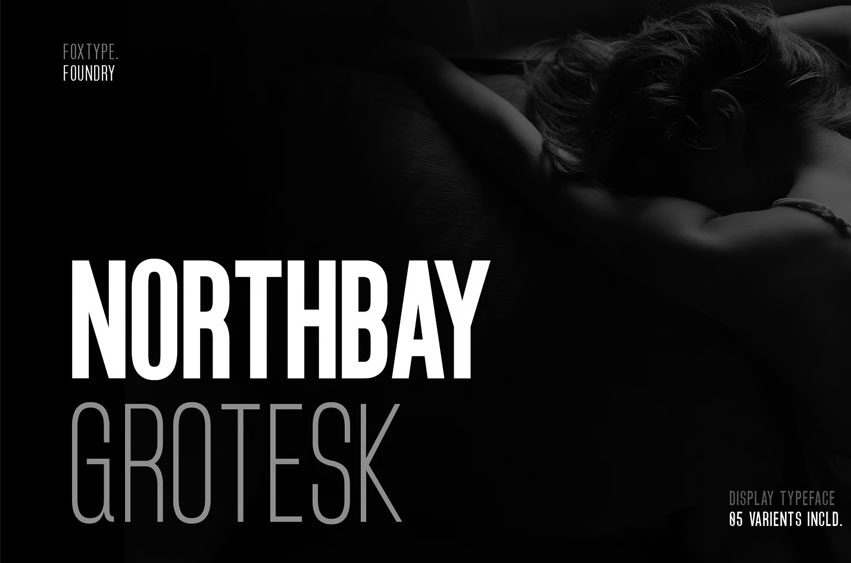
NorthBay Grotesk Font new generation Typeface with 5 Weights. Northbay Grotesk was created with the vision of attracting the audience to your brand. The finest details of this typeface are methodically and mathematically created. Northbay Grotesk is created with all the tasks of a corporate font and is also suitable for the usage in a variety of projects, including branding, logos, titles, headlines, banners, screens, displays, digital ads, and everything else.
We are putting a lot of effort into this font as a long-term project. The Typeface includes Five Weights. Light, Regular, Medium, SemiBold, and Bold — Features:
- Numerals, extended punctuation & Basic Symbols(200+ Glyphs).
- Expert kerning and quality crafting.
- Uppercase Letters & Lowercase Letters